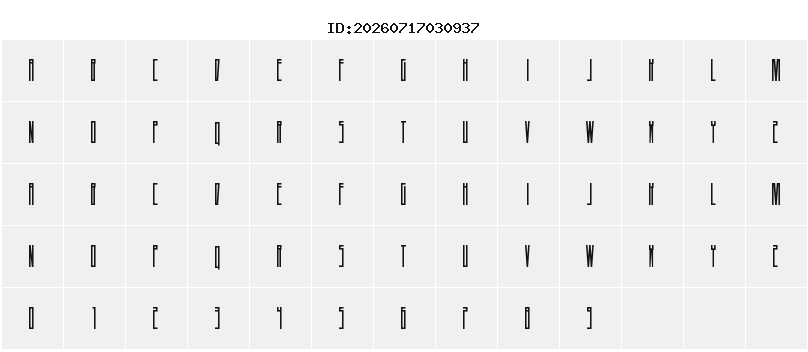
A Dash of Salt Preview
• Font Name: A Dash of Salt
A Dash of Salt.otf is a modern, elegant sans-serif font designed for ultimate readability and visual harmony. Perfect for branding, headlines, web design, and print materials.